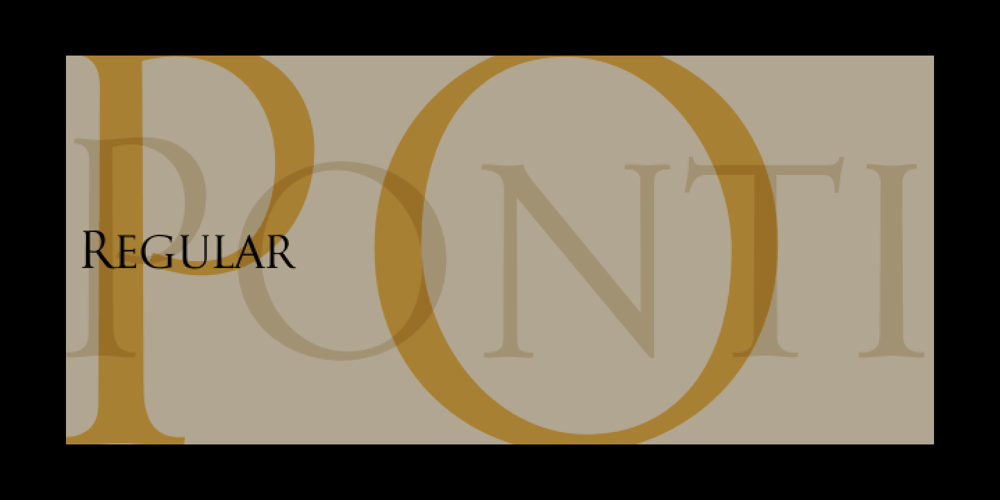
Pontif LP Font Family was designed by Garrett Boge and published by LetterPerfect. Pontif LP contains 1 styles and family package options. Pontif is a typeface based on the inscriptional lettering work of Luca Horfei, the Vatican scribe who designed the major inscriptions for Pope Sixtus V’s Baroque-makeover of Rome in the sixteenth century. Garrett Boge modeled the design on a Horfei manuscript and on-site research in Rome in 1996. Pontif is part of the LetterPerfect Baroque Set.